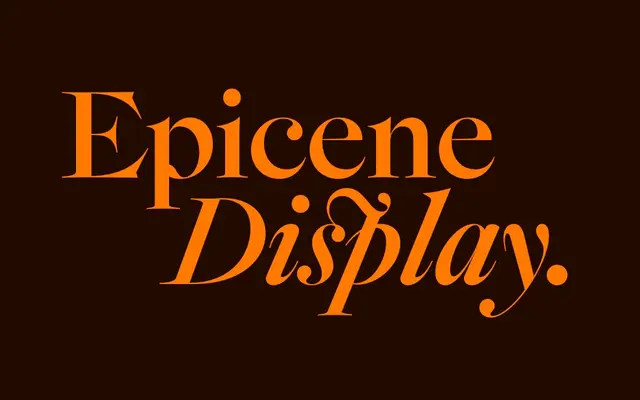
Epicene Display
Klim Type Foundry · Kris Sowersby · 2021
A Baroque display serif drawn from Rosart and Fleischmann, with sharp details that read with vigour at large sizes.
A Baroque display serif by Kris Sowersby that draws on the 18th century punches of J-F. Rosart and J.M. Fleischmann, with exaggerated details engineered to add vigour at headline sizes. Five weights from Light to Black sit alongside ten italic styles, and Epicene Display partners with Epicene Text in the wider system. It suits editorial mastheads, fashion covers and cultural posters where a sharp, characterful serif is wanted without falling into Didone chill.
Klim classifies it as Baroque Old-Style; inspired by 18th century punchcutters J-F. Rosart and J.M. Fleischmann, with exaggerated details for vigour at large sizes; Klim also frames the project around the idea that typefaces have no gender.